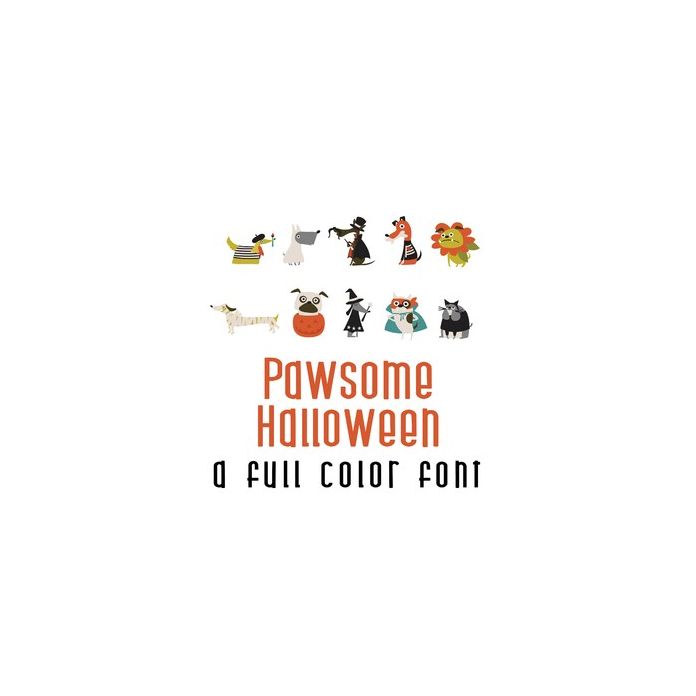
This adorable full-color doodlebat font features 26 dogs all dressed up and ready for Halloween. Perfect for cards, gifts, decor, crafts, scrap book pages, planner stickers and more!